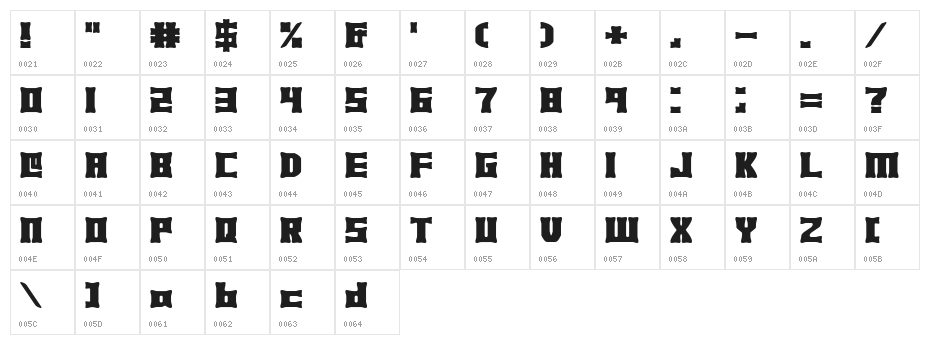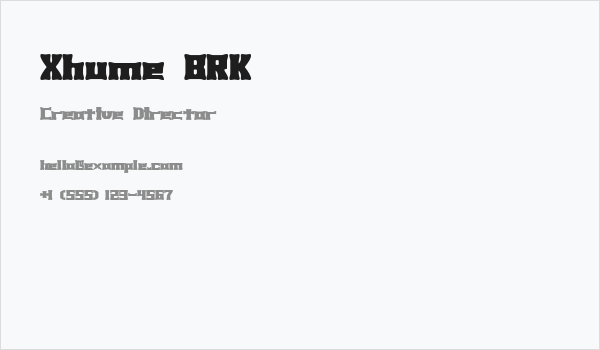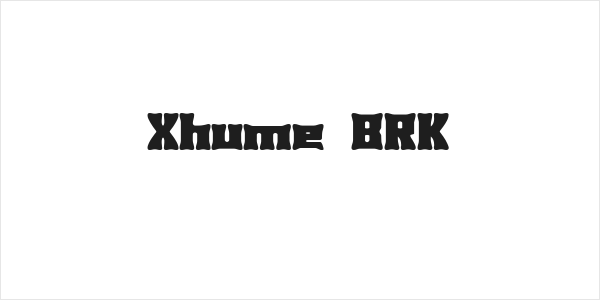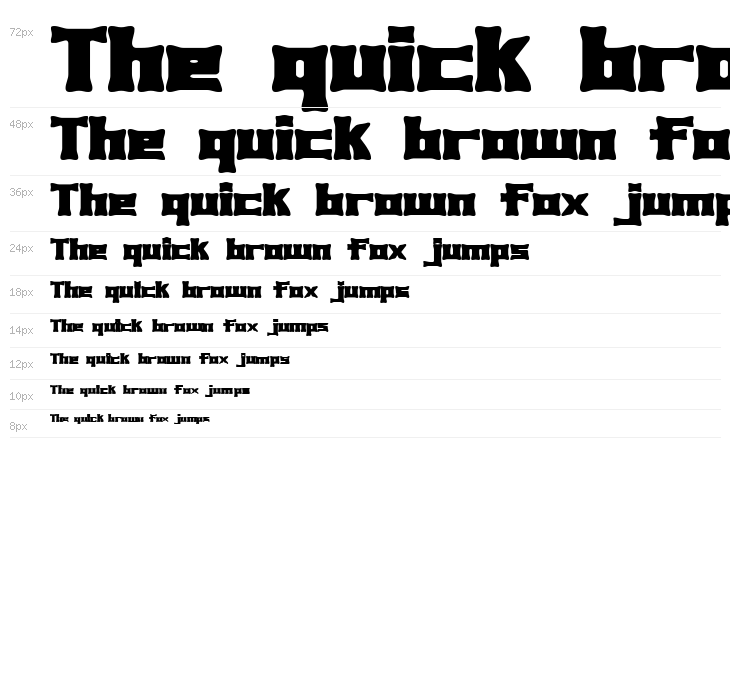
Xhume BRK Font
Xhume BRK Description
This font exhibits a bold and rugged style, characterized by its thick, uneven strokes and a distressed appearance. The letters have a blocky structure with irregular edges, giving them a hand-carved look. The uppercase and lowercase letters maintain a consistent weight, while the numerals and special characters follow the same bold and textured design. This font's unique style makes it stand out, offering a sense of strength and individuality. Its distinctive appearance is suitable for projects that require a bold statement or a touch of rustic charm.
| Proposed Projects | Ideal for posters, album covers, branding projects, and any design requiring a bold, rustic aesthetic. |